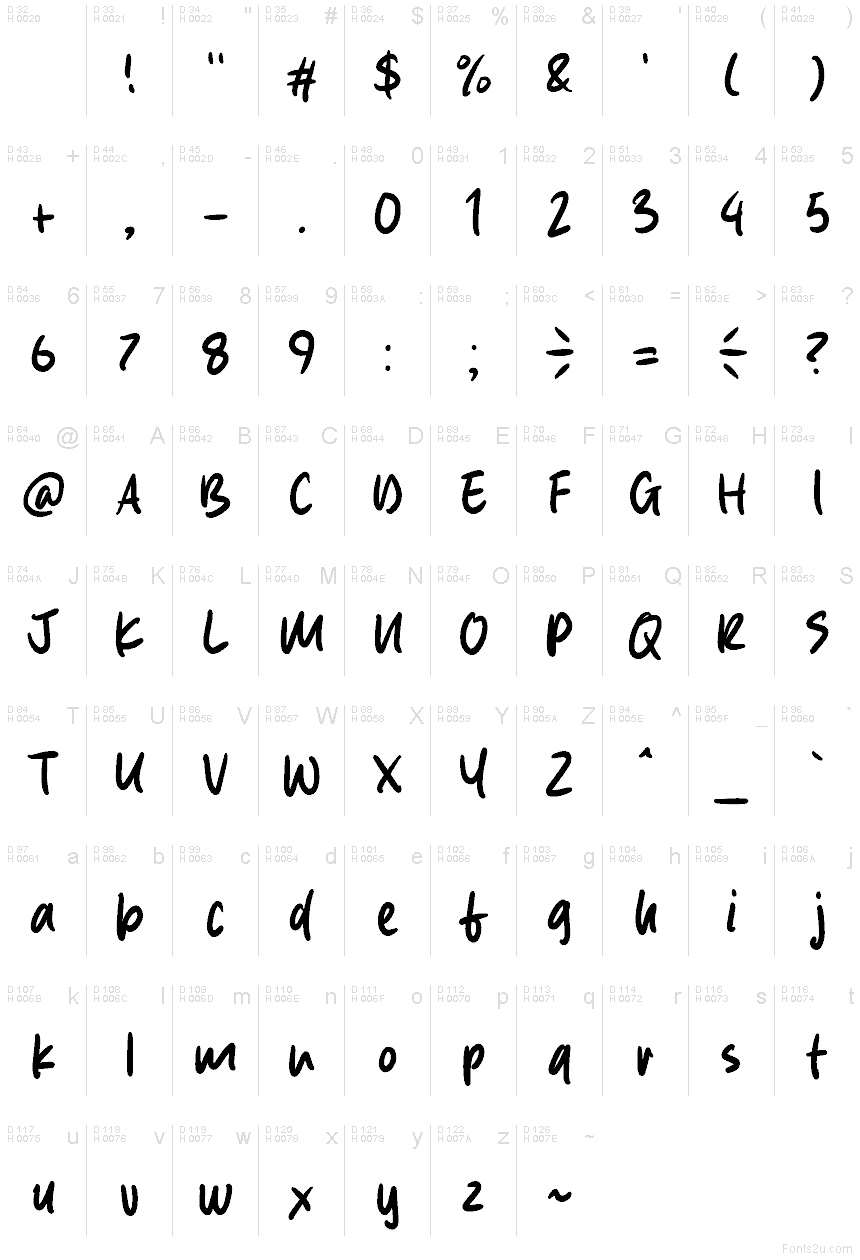
Autumn Bright
Autumn Bright font by MJType is a free handwritten font that nails the sweet spot between lively brush energy and clear readability. Thick, inky strokes with soft, rounded edges give it a warm, human rhythm, while the gentle forward slant keeps headlines moving. It’s expressive without getting messy—great when you want a handwritten feel that still scans at a glance.
Using Autumn Bright, you’ll get instant lift on social posts, product packaging, café menus, event invitations, posters, and merch tags. The bouncy forms add personality without shouting, so short phrases pop and longer lines stay comfortable. Pair this free font with a clean, understated sans to let the brush texture lead, and size it a touch larger with relaxed line spacing for that cozy, confident look.